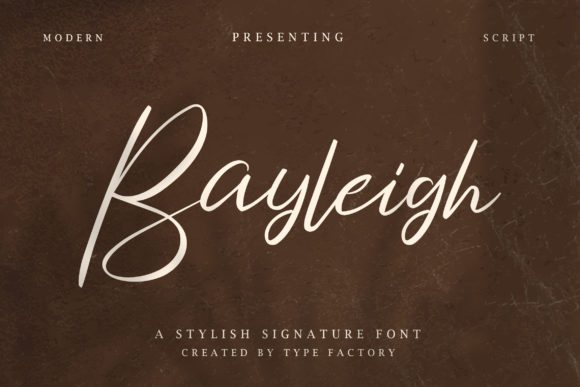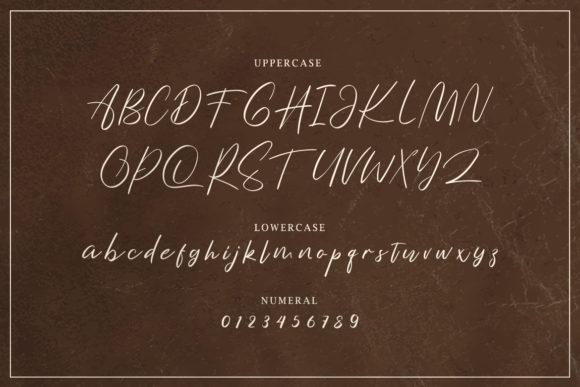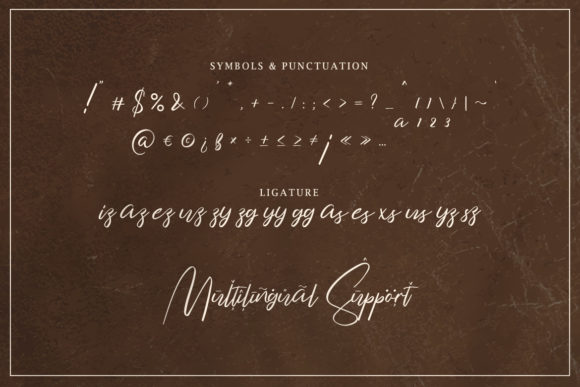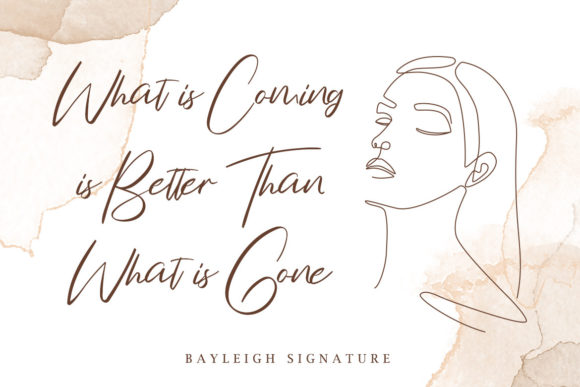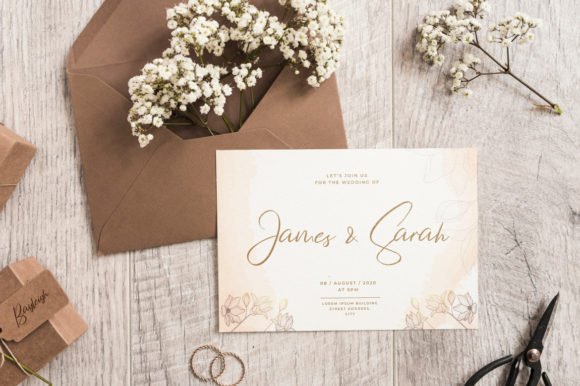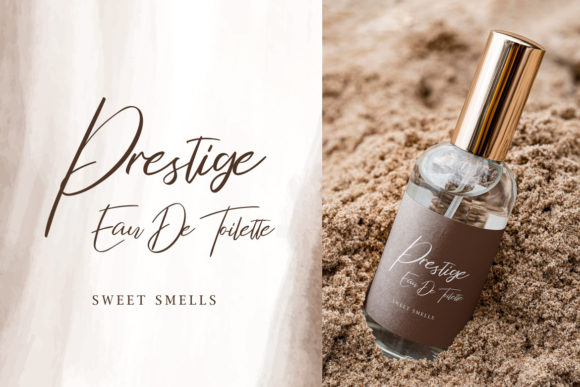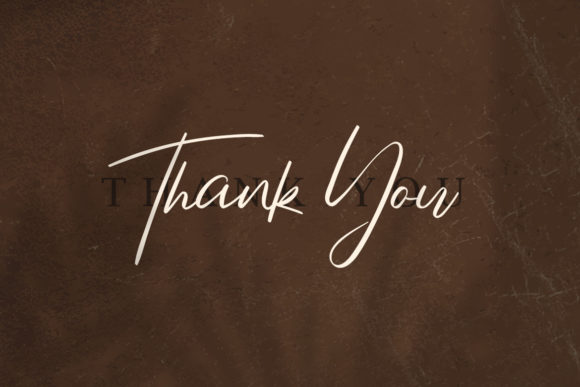
About Bayleigh Font
Bayleigh is an elegant script font with a contemporary atmosphere and impeccable form, inspired by timeless classic calligraphy. Not too thin and not too thick, balanced and varied, this font was designed to enhance the beauty of your projects.Â